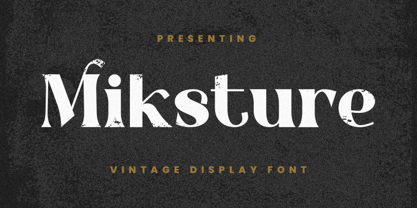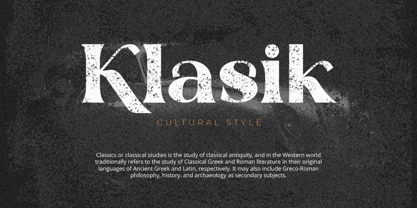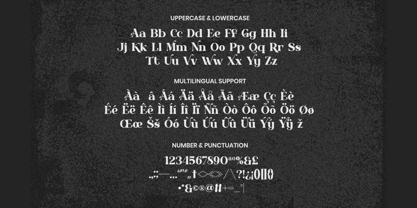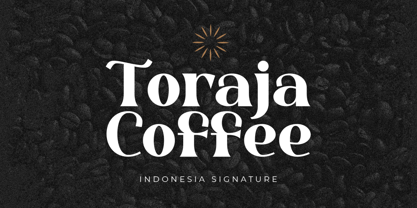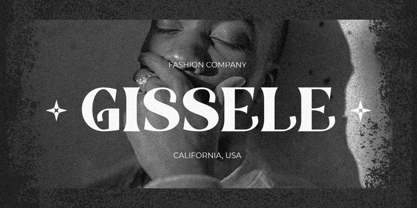
Miksture
por Imoodev
La familia tipográfica Miksture fue diseñada por Aulia Savira Putri y publicada por Imoodev. Miksture contiene 1 estilos. Más información sobre esta familia
Introducing Miksture, a captivating and elegant display font that reinterprets the classic Didone style for the modern era. This font captures the essence of the Didone genre through its dramatic, high contrast between thick and thin strokes and its crisp, hairline serifs.
Miksture is the perfect choice for high impact headlines, fashion magazine mastheads, and editorial layouts. It excels in luxury branding, creating logos for premium products from fashion and cosmetics, artisanal coffee branding and elegant wedding invitations. Miksture provides the versatility and character to make your designs stand out.